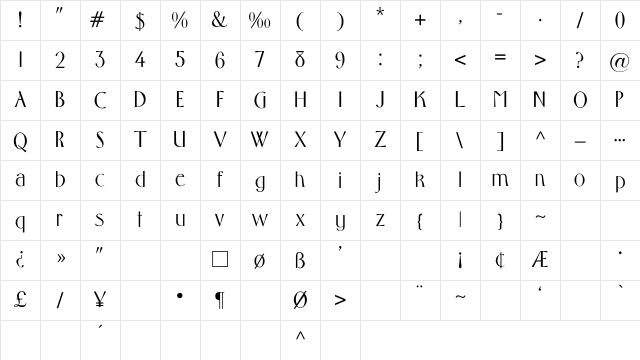
Middleton-Light Regular
Middleton-Light Family
Design Context for Middleton-Light
Middleton-Light is a composed and adaptable typeface that performs quietly and consistently across a wide range of design contexts. Its slender proportions lend an understated elegance to any composition.